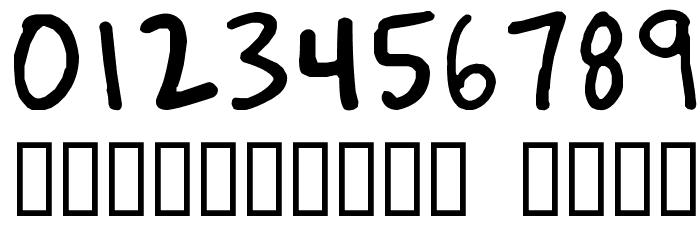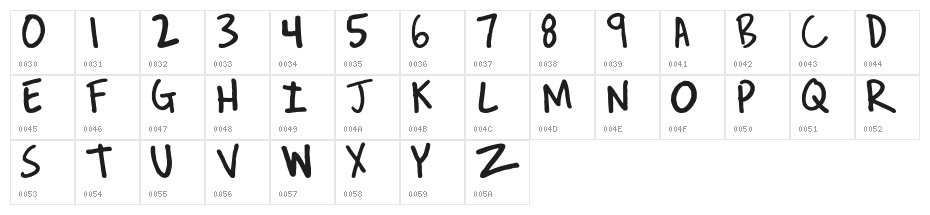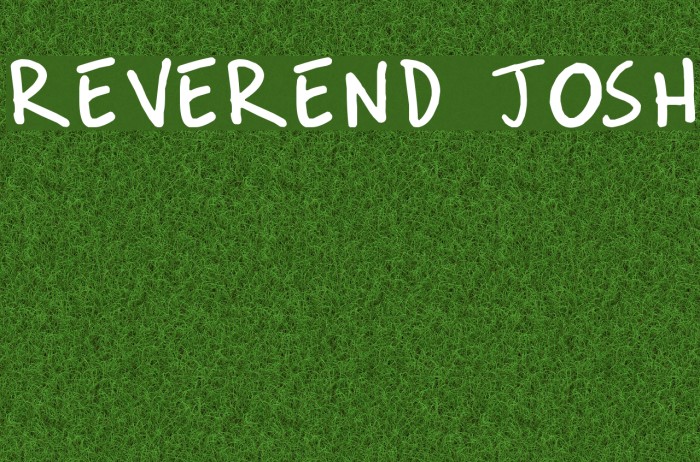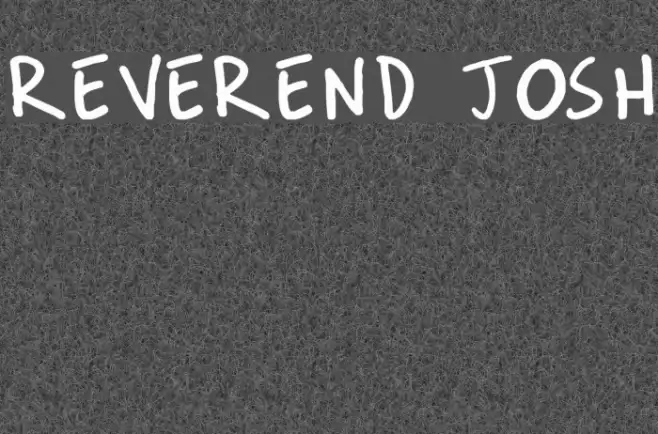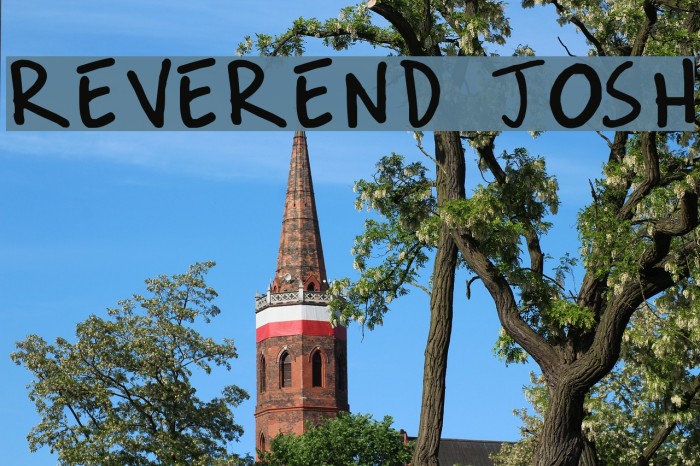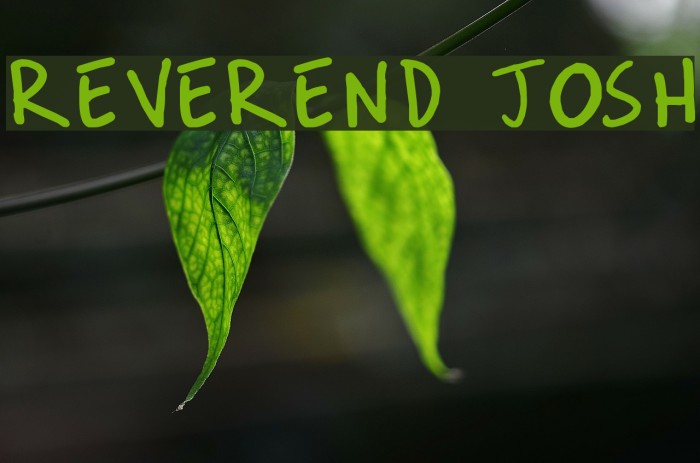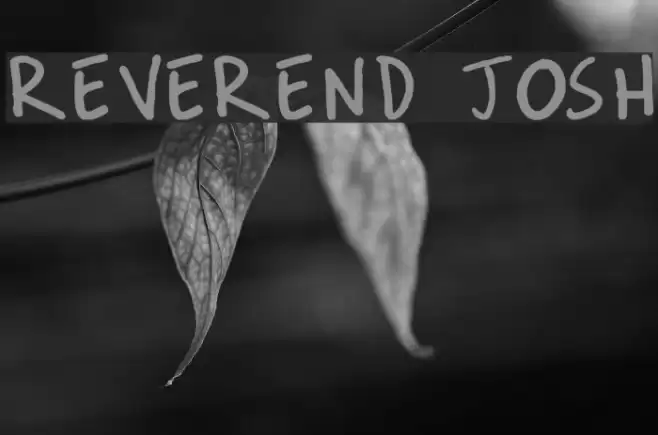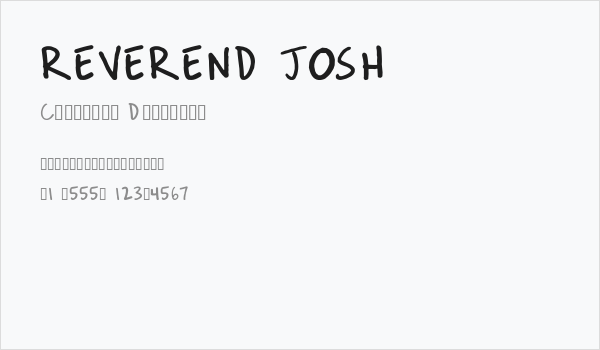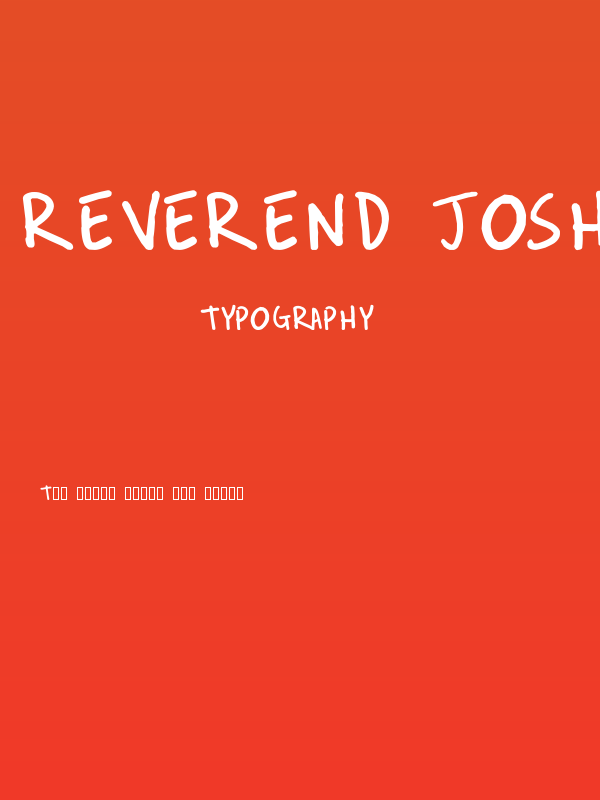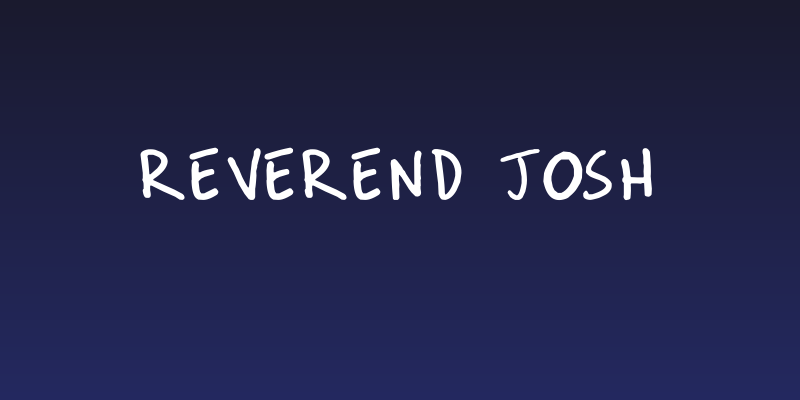
REVEREND JOSH Font
REVEREND JOSH Description
This font features a playful and casual handwritten style, characterized by its smooth, rounded strokes and slightly irregular letterforms. The uppercase letters are bold and prominent, while the lowercase letters maintain a consistent flow, adding to the font's informal charm. The numerals are clear and easy to read, with a similar handwritten aesthetic. This font lacks lowercase letters and special characters, which limits its versatility but enhances its unique style. The overall appearance is friendly and approachable, making it suitable for projects that require a personal touch.
| Proposed Projects | Ideal for greeting cards, children's books, casual branding, and social media graphics. |